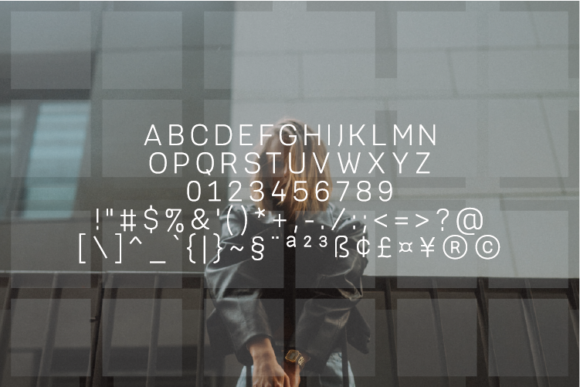
The Clownerf Font: A Design Game-Changer for Creatives
I’ll never forget the struggle I faced while working on a branding project for a new coffee shop. My client wanted a font that was both elegant and modern, but I was coming up blank. That’s when I stumbled upon the Clownerf font, and it changed the game. In this article, I’ll share my experience with this beautiful sans serif font, its features, and how to make the most of it in your designs.
An Honest Review of Clownerf
What I Love About Clownerf ✨
- ✅ Elegant and modern aesthetic: Clownerf seamlessly blends traditional influences into a contemporary design that’s perfect for logos, branding, and packaging.
- ✅ Versatile: This font is suitable for a wide range of creative projects, from business cards to billboards.
- ✅ Well-crafted: The attention to detail in Clownerf is impressive, making it a joy to work with.
- ⚠️ Limited language support: While Clownerf covers the basics, it may not support more exotic languages.
- ⚠️ Not ideal for body text: Due to its elegant nature, Clownerf might not be the best choice for lengthy paragraphs of text.
Unlocking OpenType Features and Glyphs
The Story Behind Clownerf
Clownerf was designed by a team of creatives who aimed to create a font that would blend traditional influences with modern sensibilities. Inspired by classic sans serif fonts, they crafted Clownerf to be both elegant and versatile. The result is a font that’s perfect for designers, crafters, and creative hobbyists looking to elevate their projects.
Q: What type of projects is Clownerf best suited for?
A: Clownerf is ideal for logos, branding, packaging design, and other projects that require an elegant and modern aesthetic.
Q: Is Clownerf a script font?
A: No, Clownerf is a sans serif font with a clean and elegant design.